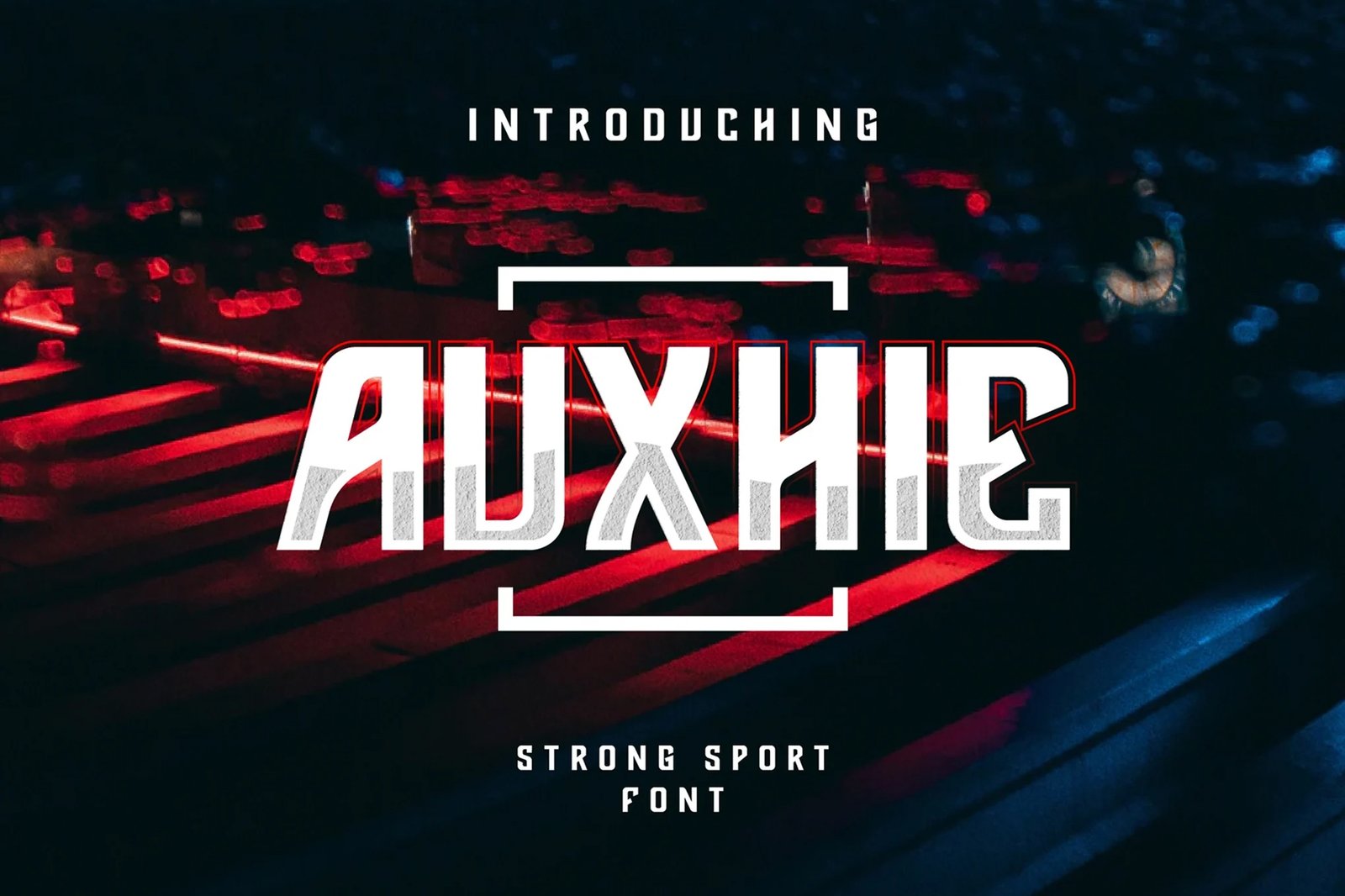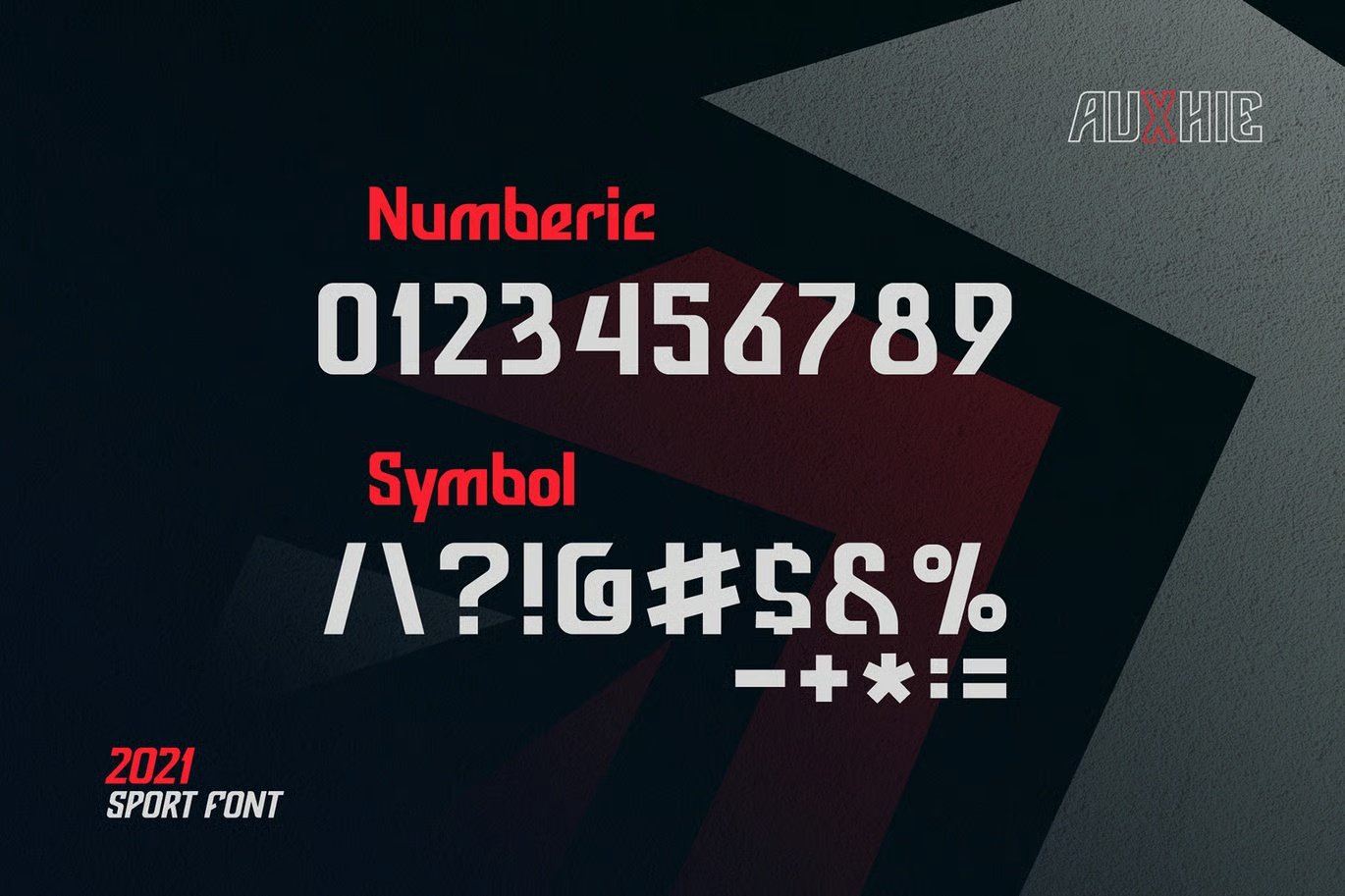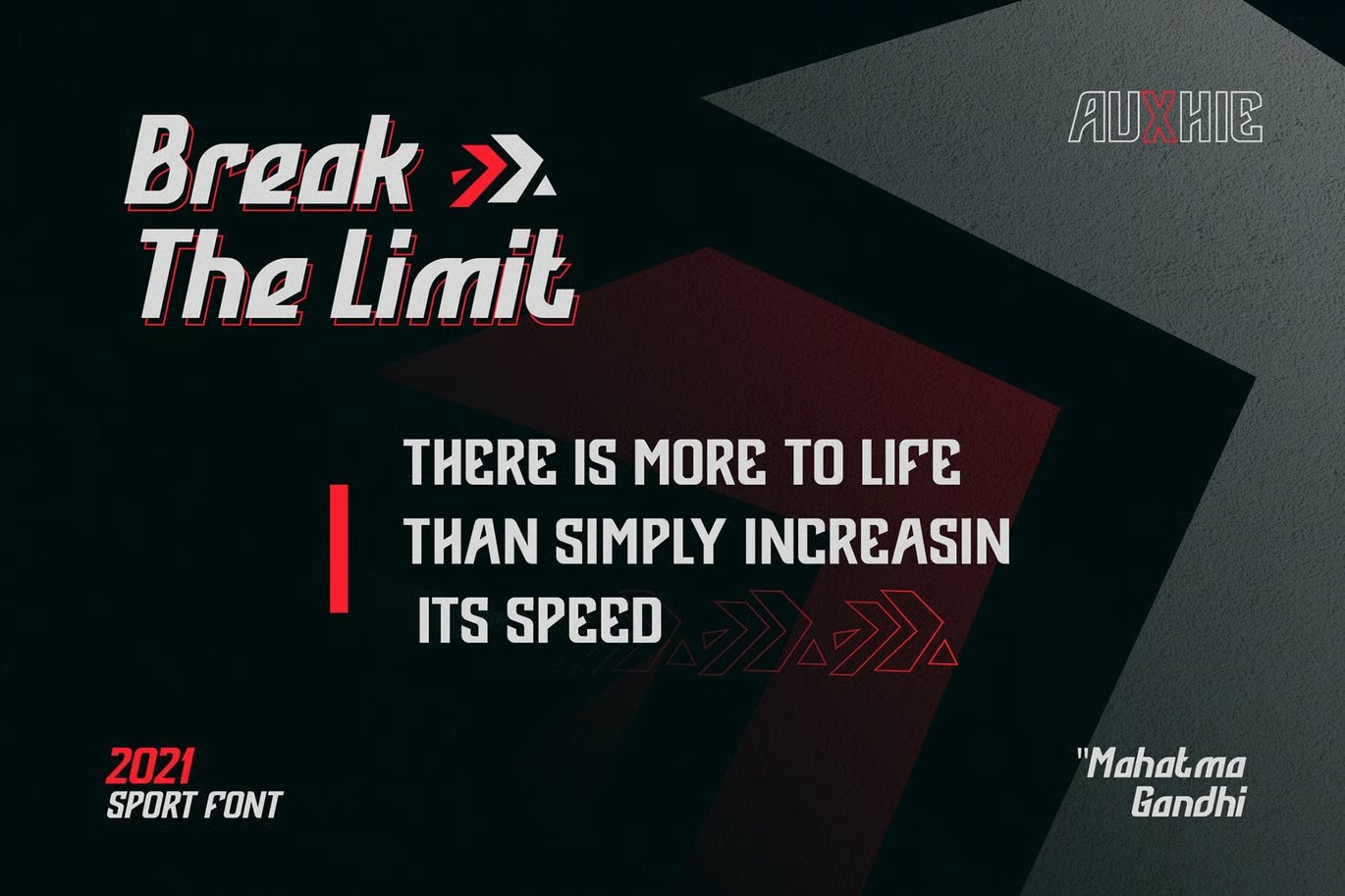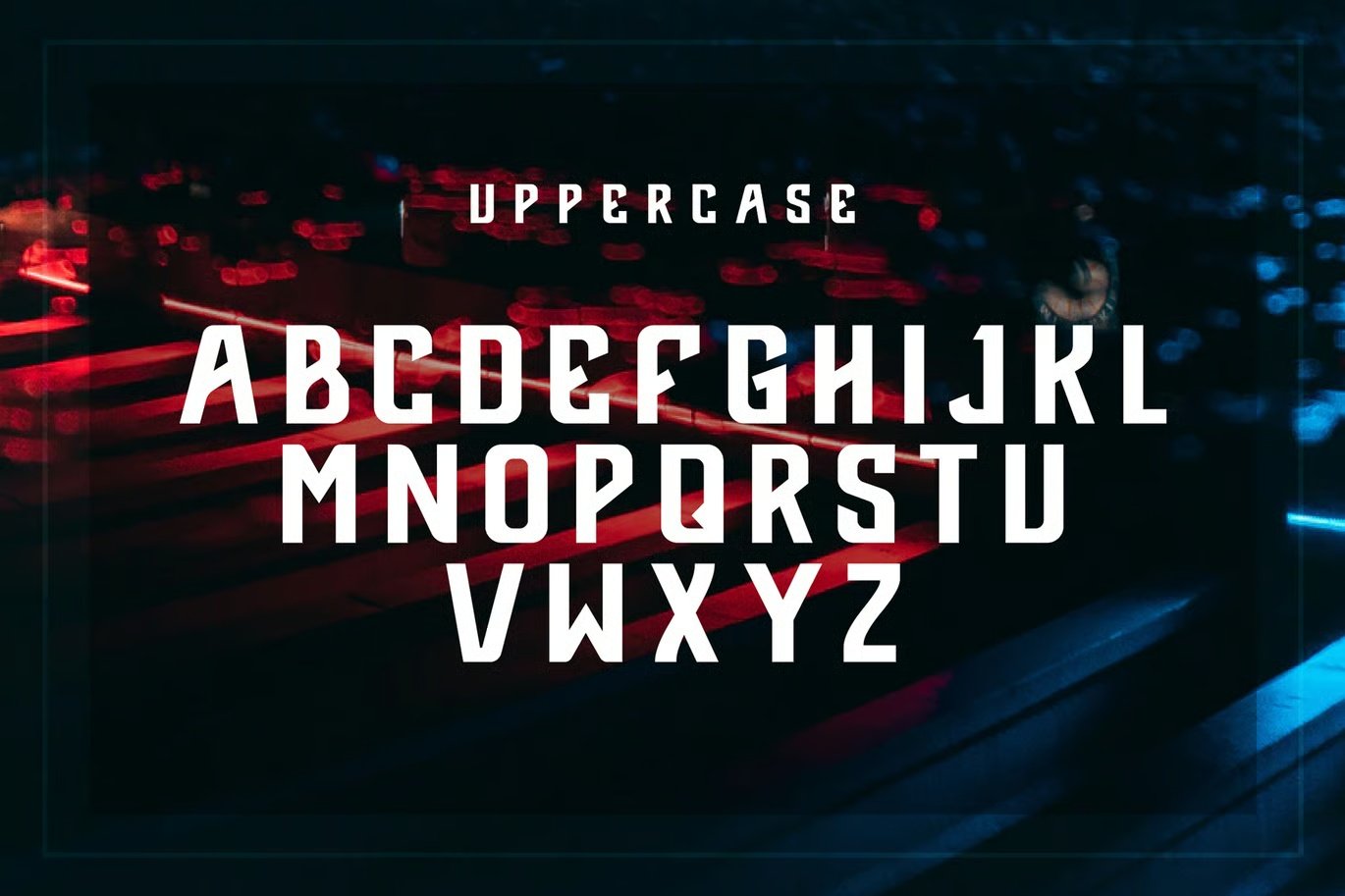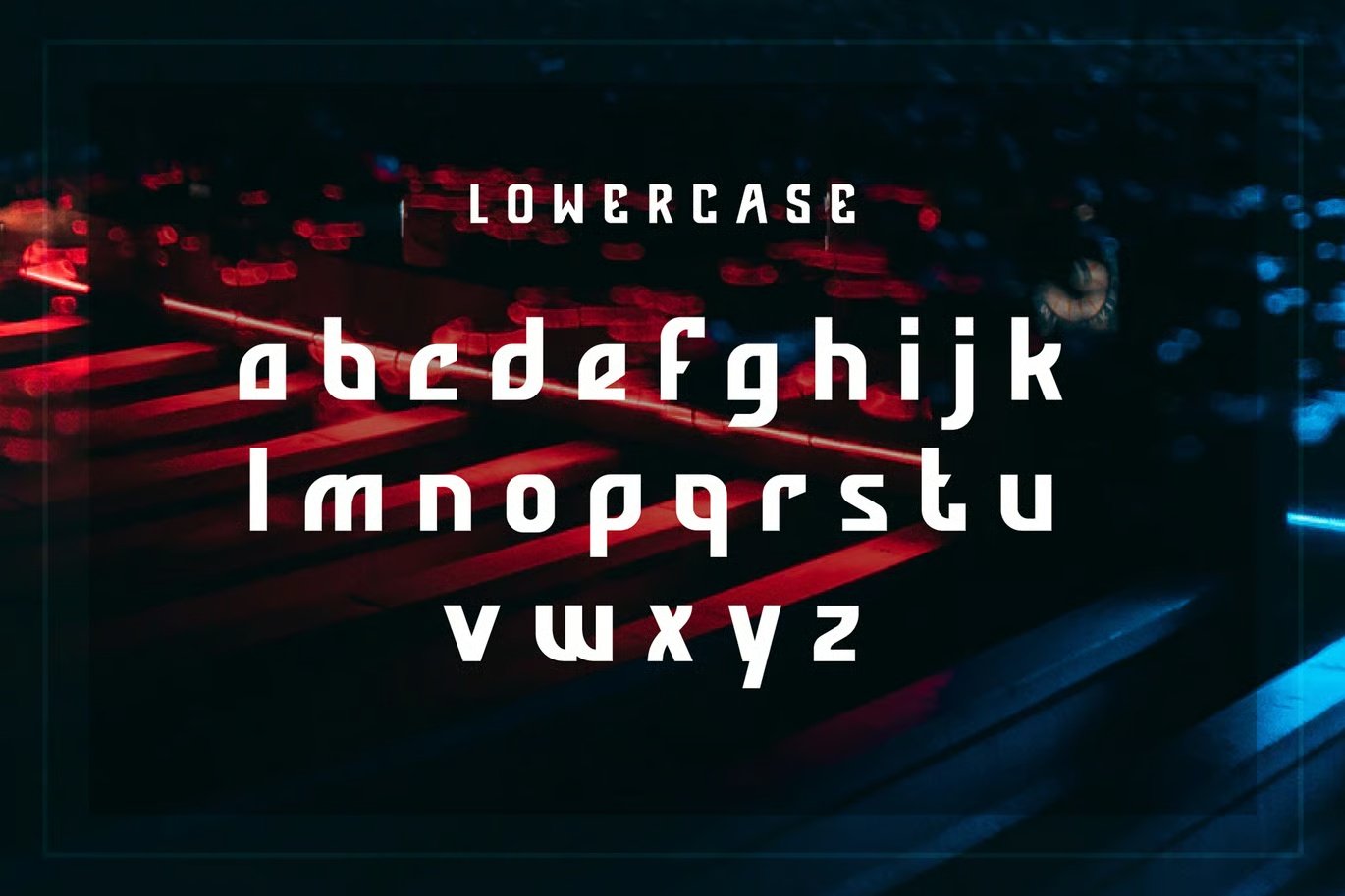
Auxhie Modern Sport Font
Introducing Auxhie Modern Sport Font This all caps font is suitable for posters, magazines, apparels, movie headlines, packaging, Logo and more.
• Uppercase
• Lowercase